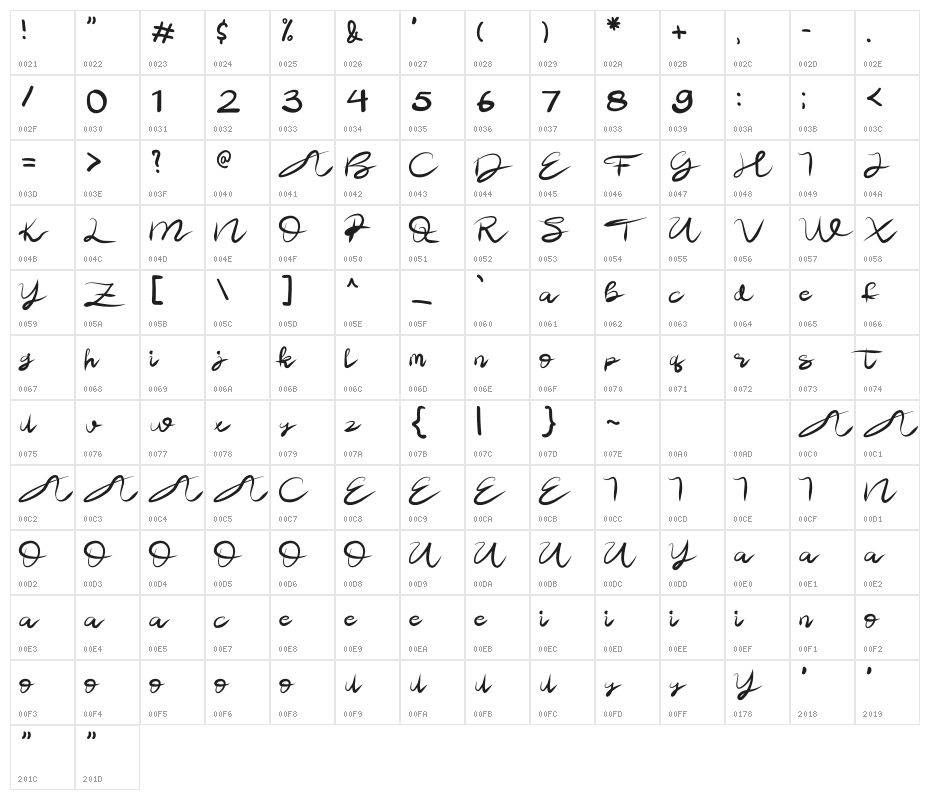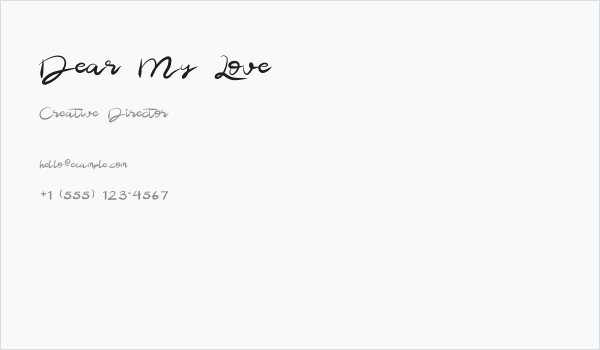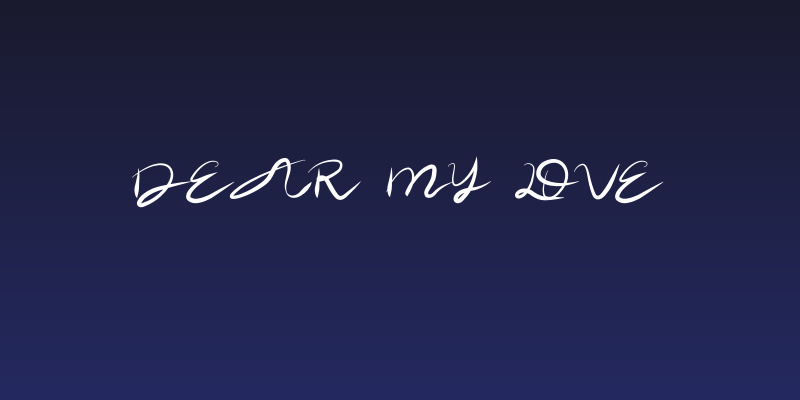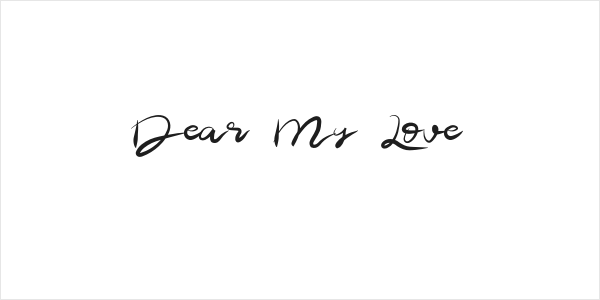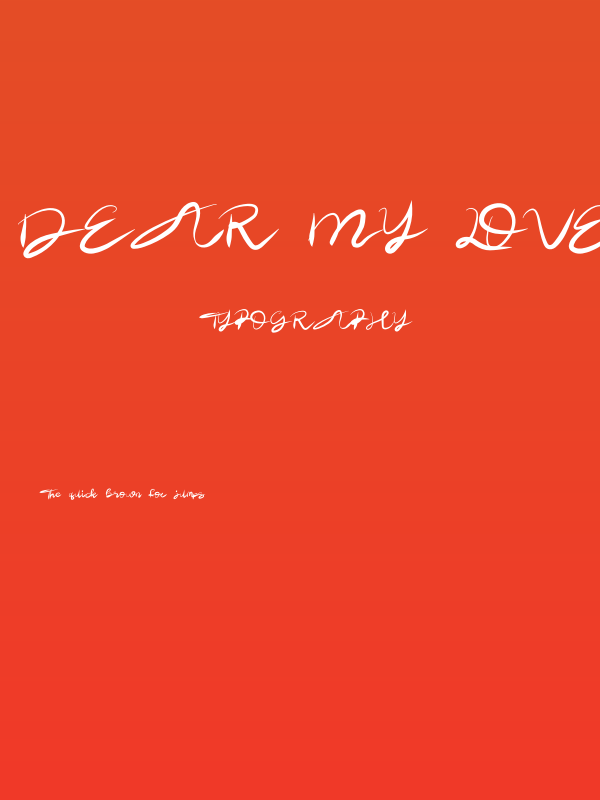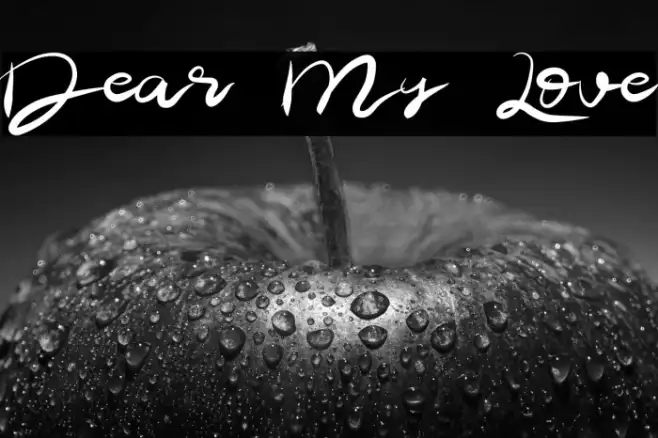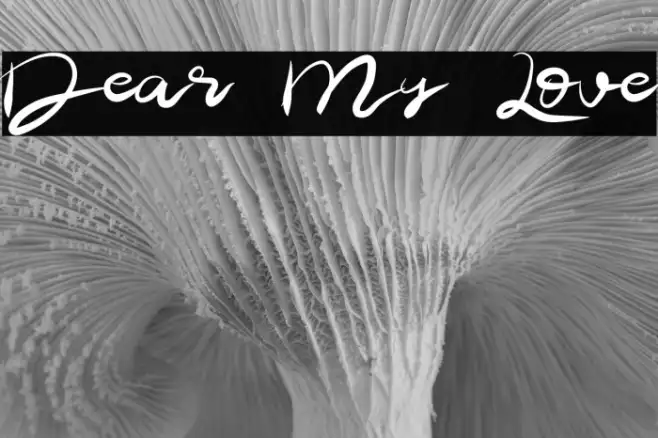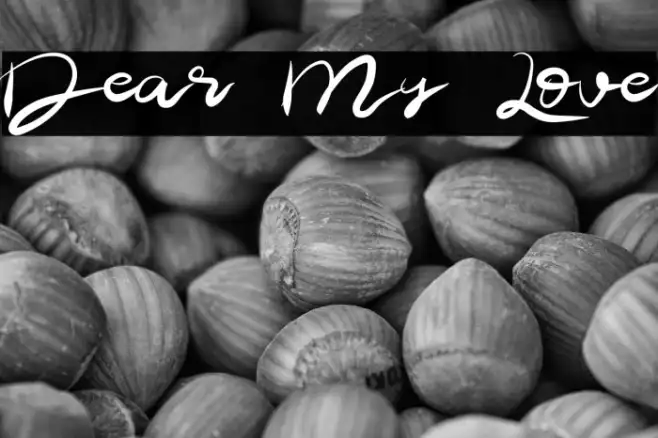
Dear My Love Font
Dear My Love Description
This font features a flowing, cursive style that exudes elegance and sophistication. The uppercase letters are characterized by sweeping curves and fluid connections, giving them a dynamic and graceful appearance. The lowercase letters maintain a consistent flow, with smooth transitions between each character, enhancing the overall readability while preserving the script's artistic flair. The numerals are bold and rounded, complementing the letterforms with a touch of playfulness. Special characters are thoughtfully designed to match the font's aesthetic, ensuring a cohesive look across all text elements. This font is ideal for projects that require a personal touch, such as invitations, greeting cards, or branding materials.